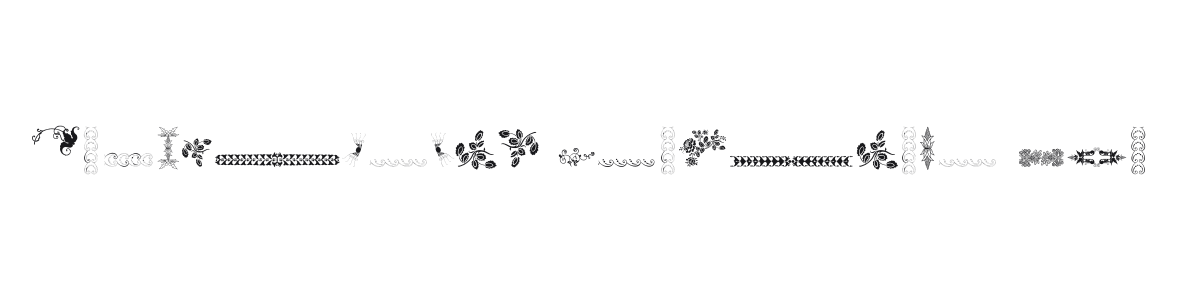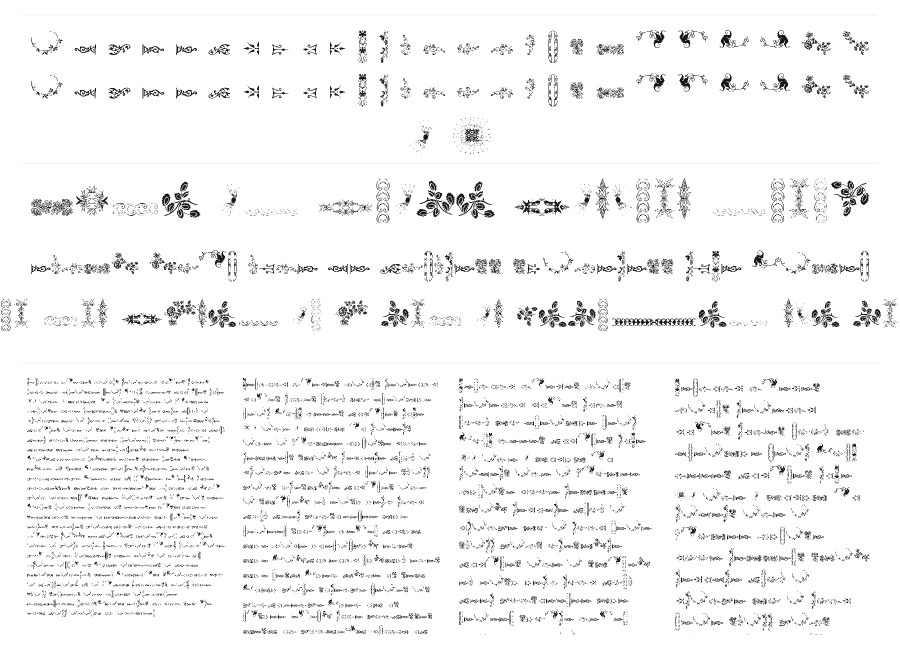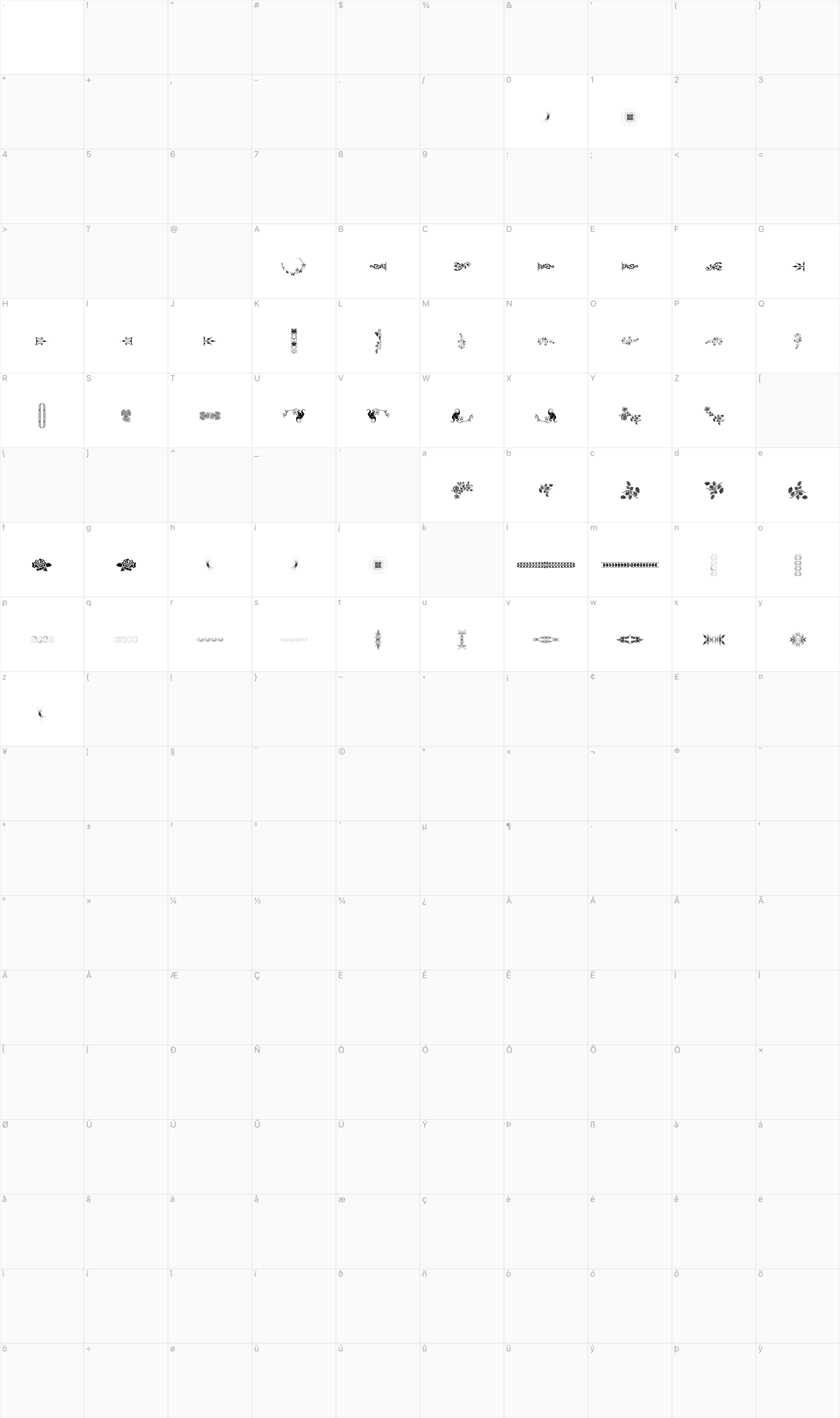
Unpublished Ornaments Two
Unpublished Ornaments Two is a collection of Victorian and Art Nouveau-inspired floral and botanical decorative symbols from Intellecta Design. The set includes roses, leafy borders, scrollwork dividers, and symmetrical ornamental devices drawn with engraved-style detail. These glyphs work equally well as standalone accents or tiled into decorative borders and frames.